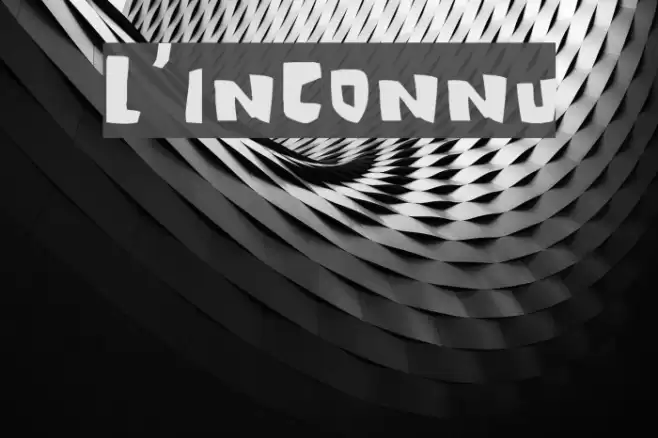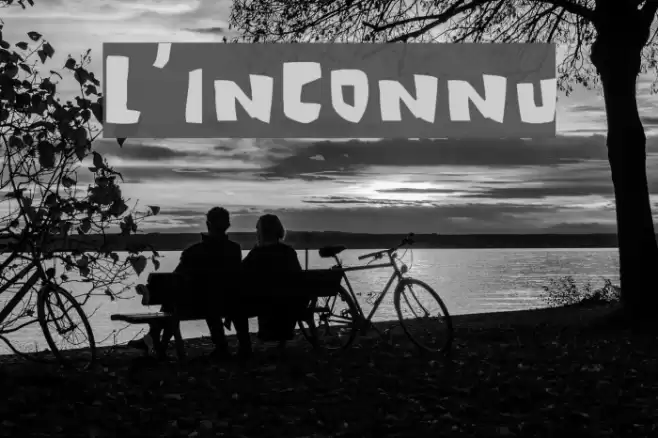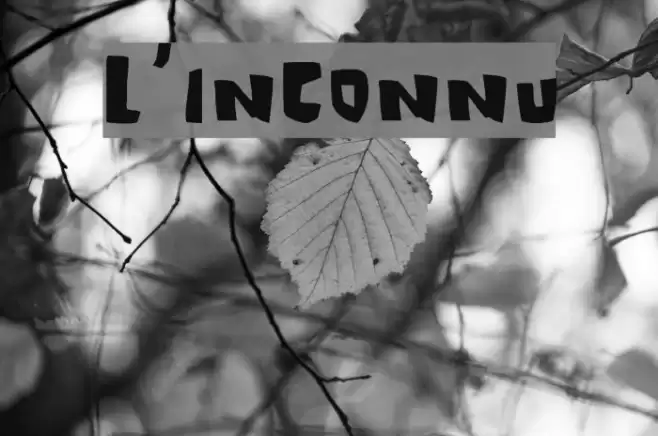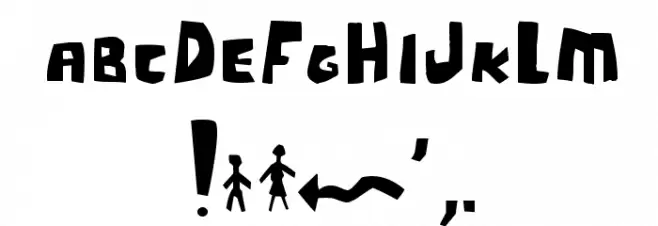
L'Inconnu Font
L'Inconnu Description
This font features a bold, playful style with irregular, hand-drawn characters that give it a whimsical and artistic appearance. The letters are unevenly shaped, with varying stroke thicknesses that add to its unique charm. The uppercase and lowercase letters maintain a consistent style, while the numbers and special characters complement the overall design. This font's quirky and informal look makes it ideal for creative projects that require a touch of personality and fun.
A bold, playful font with irregular, hand-drawn characters from Uncategorized fonts.
- Proposed Projects: Ideal for children's books, comic strips, playful branding, and creative posters.
- Overall Style: Playful, Artistic
- Use Case: Headlines, Posters, Creative Projects